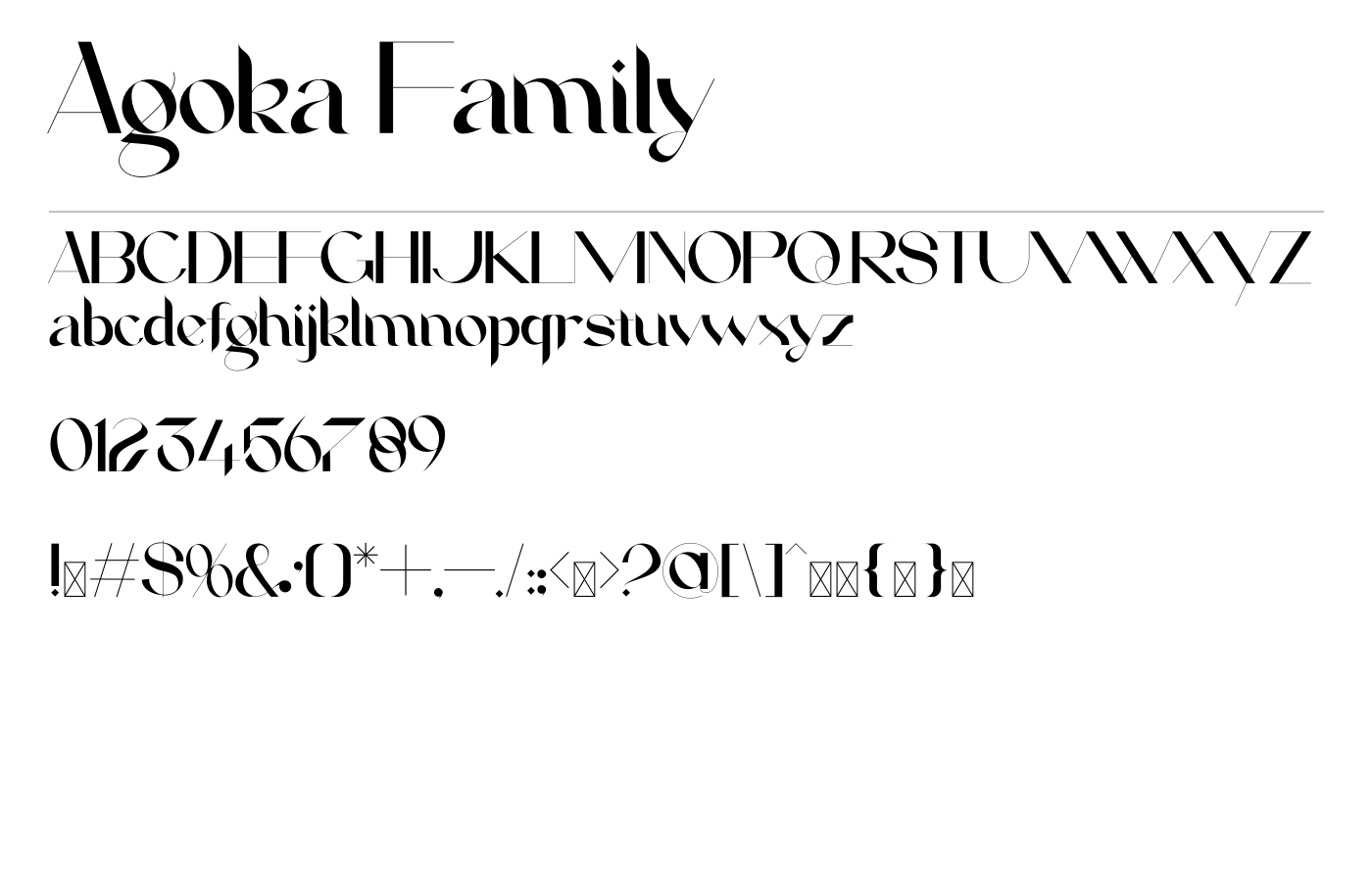
Agoka Family is a refined serif typeface characterized by its high contrast between thick and thin strokes and elegant, sharp serifs with delicate brackets. Its unique letterforms blend modern sophistication with artistic flair, making it ideal for luxury branding, upscale editorial design, and striking headlines where a stylish and distinctive look is desired.
Agoka Family Font
About Agoka Family Font
| Designer | Delip Nugraha |